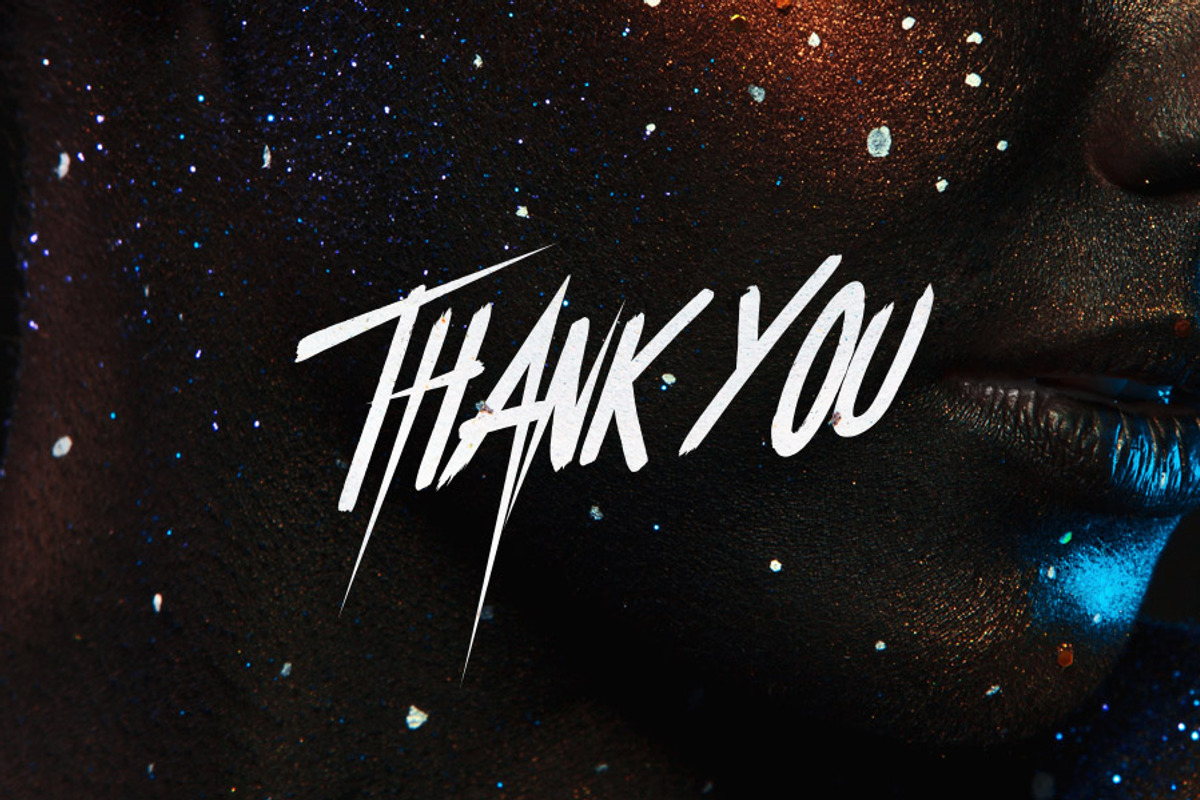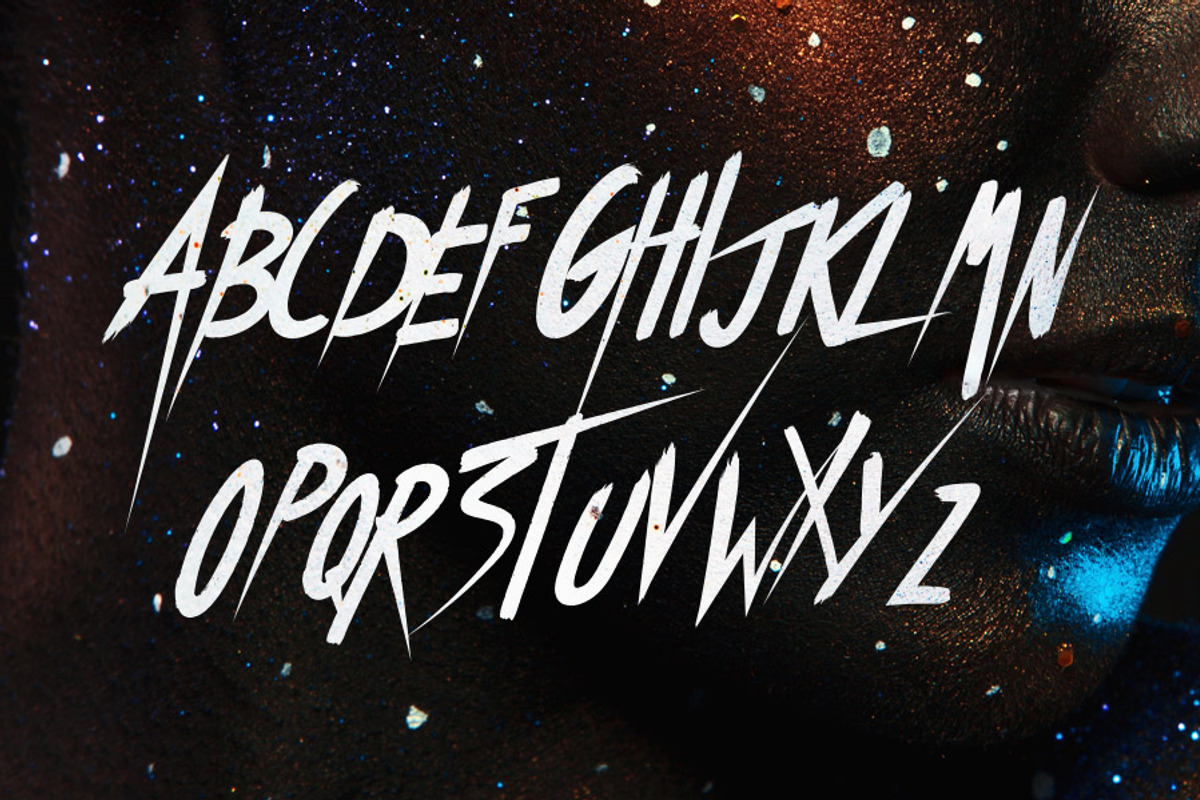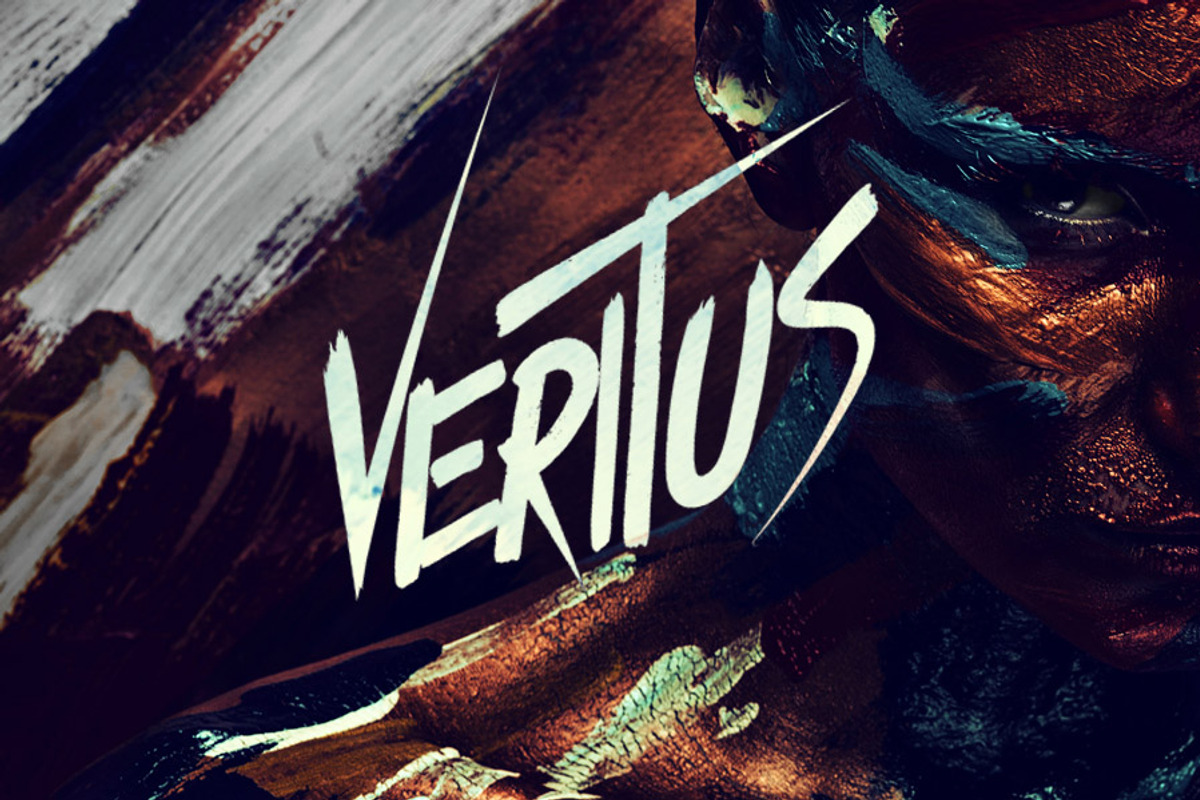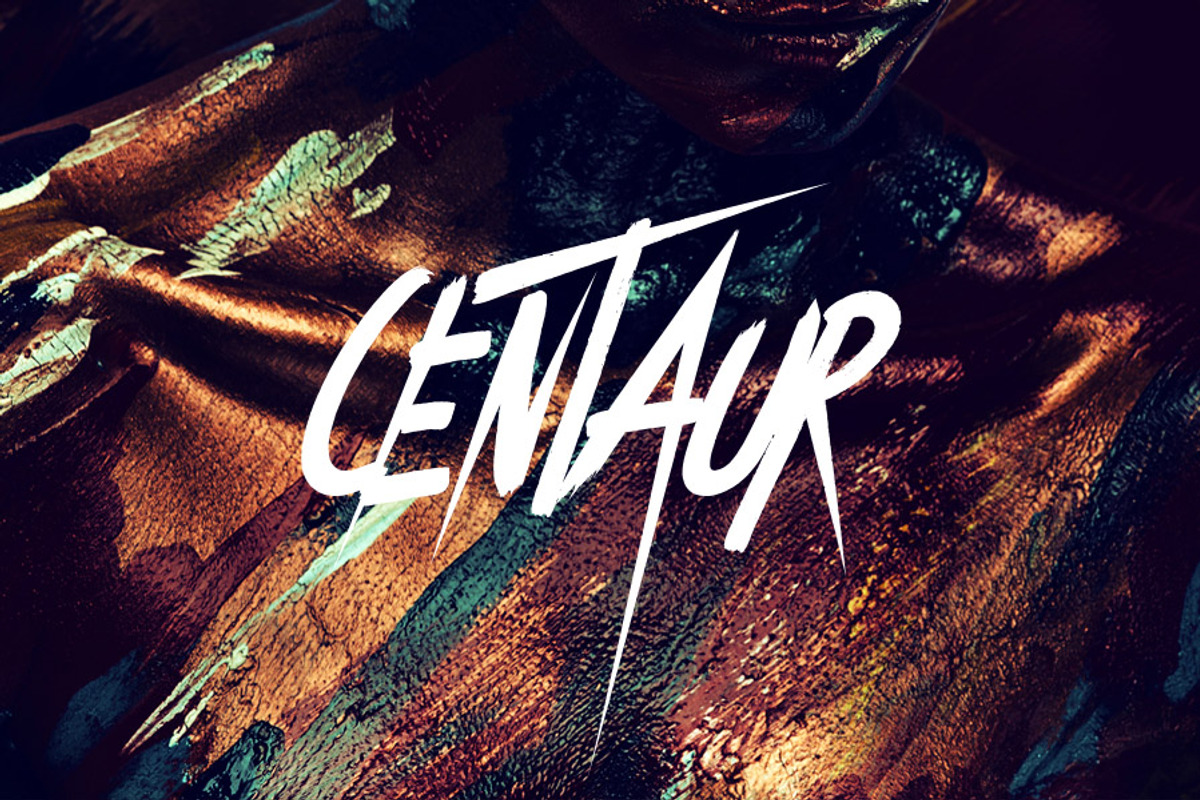
Veritus - Brush Font
Veritus is a brush font with wicked characters. It includes English uppercase letters, numbers and simple punctuation. Some letters also have alternate versions which you can toggle with caps lock. The default kerning is very tight so I suggest you preview the words you intend to use before purchasing.